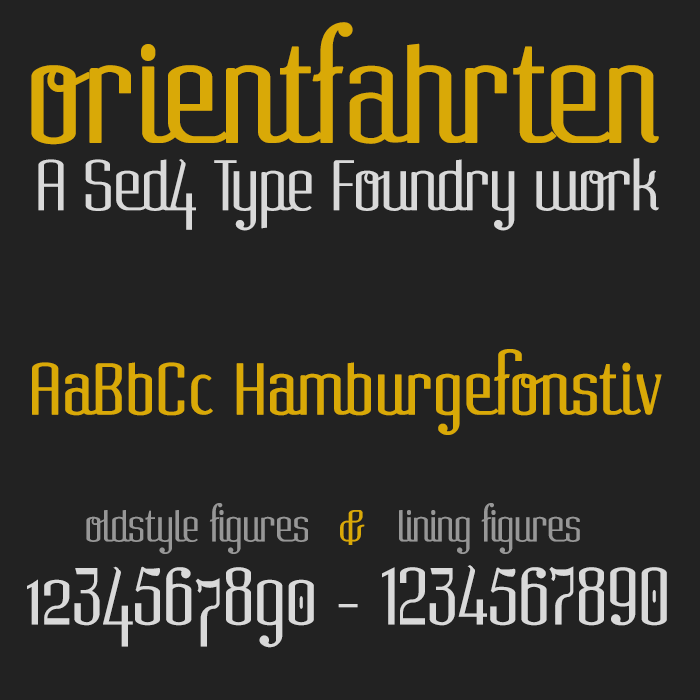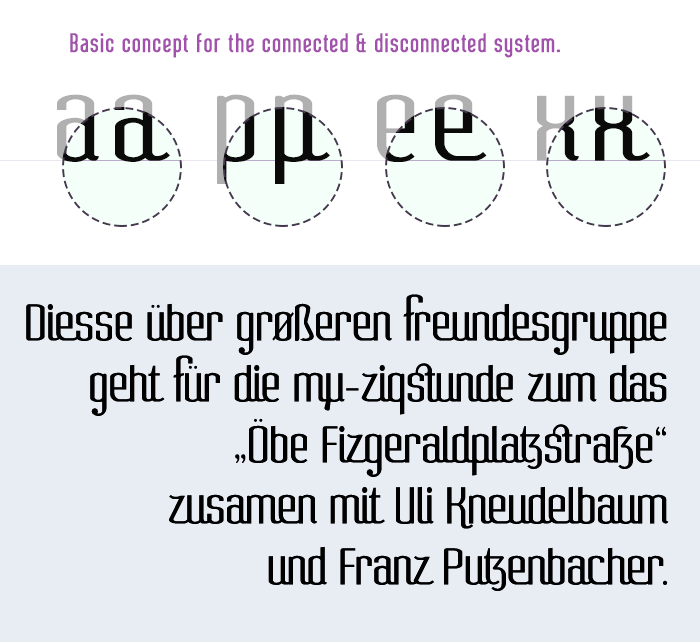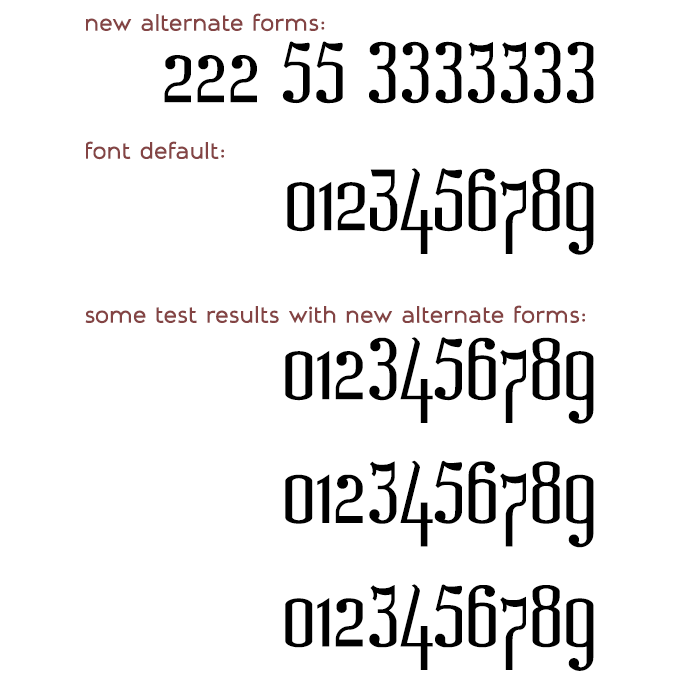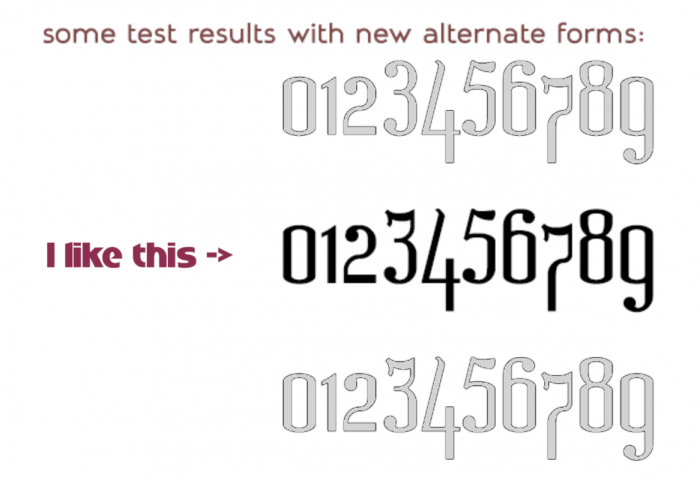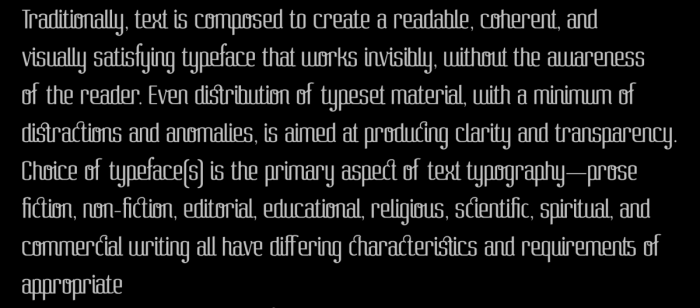
ORIENTFAHRTEN (Pro) — Semi-connected script-style font design
Losely based on the lettering that was seen on a 1929 poster design by German painter Ottomar Carl Joseph Anton (1895-1976) for the “Hamburg-Amerika Line” * (click for image of the original poster)
Whereas the original (non-Pro)-version aimed at extracting that “stylistic essence” of the lettering, and made an attempt at extrapolating and restoring a full alphabet from the letters provided by the original poster.. And so, that basically became sort-of a font revival with a little extra's.
ORIENTFAHRTEN (Pro) then took this to a whole nother level.
This reformation wasn't guided by Ottomar's original poster-lettering, but rather a remodeling and amelioration of my initial work.
Many glyphs were fully re-invented, others only just partially improved.
In addition to this, many new things were introduced as well.
For example, the font was further ornated with various typographic elements and bits, reminiscent of calligraphic hand lettering.
Turning this into a much more attractive looking little novelty.
Also some “technical” restructuring of the Unicode character mapping, to creating more user-friendly text formatting properties.
Since it is a semi-connected script, certain characters were deliboratly disconnect and some weren't.
For example, the uppercase letters almost all disconnect, whereas the majority of lowercase letters will connect by default. A set of glyphs alternate forms was included that allow to break the 'connected' flow of a text.
These also function sort-of as “Contextual Substitutions”, but without OpenType's automated glyph-stream lookup classes. Yet these do allow the manual control over word-endings and word-space situations. So when a default-glyph is followed by a white-space, a glyph-alternate form could than be selected to replace the default-character encoding and improve overall aesthetics and natural flow of text. These substitutions are located in the “Halfwidth and Fullwidth Forms” and “Private Use Area's” Unicode blocks. In addition to the default alphabet letters the font also includes numerous symbols and punctuation marks, as well as ligatures.
As for the “numberscomp” that is currently in progress:
This font was specially fitted with 5 different schemes for text figure arrangement.
• Didot-(old style) non-lining (font default)
• Traditional-(old style) non-lining
• Clean-(modern) lining
• Tradidotional-(old style) non-lining
• Ornate-(modern) lining
I love this one the most, I love retro scripts, Cyrillic will look interesting in it. You've very cleverly added handwritten elements to the numbers.
What elegant numbers...
Guess we both have the same idea on interpreting the numerals! Currently still working on my submissions, but I wish I could interpret more of the oldstyle figures that past typographers have done, specifically the ones where it occupies fully from the ascender to the descender barriers.
You did a great job in honoring the original lettering for your typeface. I'd reckon you can go further with the numerals by doing more alternate designs. Perhaps more ball terminals for 2, 3 and 5? Nice work overall!
I love how you have included different numerals styles. This must be the first fontstruction with so many variations.
@four: Thanks for the appreciation. I did it to demonstrate that although very rare, the traditional non-lining (oldstyle) and lining (modern) text figures aren't just the only two forms. And that experimentation is allowed as long as proper rhythm of text flow is maintained. About this being the first fontstruction to have this many scheme variations I don't know, I did fonts with multiple text figure schemes before.
@faux_icing: “You did a great job in honoring the original lettering for your typeface”
—Yes I believe so,
Although I didn't necessarily aimed this to be a convincing or accurate revival, I tried to preserve a strong reference to the original form. I'm glad it is noticable. But the main objective was to dive a little deeper into the cursive handwriting style.
“Guess we both have the same idea on interpreting the numerals! ...but I wish I could interpret more of the oldstyle figures that past typographers have done, specifically the ones where it occupies fully from the ascender to the descender barriers”
But I guess for a contest entry that was checking all the boxes required for it to participate within the guidelines of the contest, I guess that adding another additional sample image wouldn't be problematic, right?
Neither does the image include any of the Text figures from the font..
It solely involves the font's script functionality and use of several contextual substitutions in a small chunck of more advanced Body Copy.